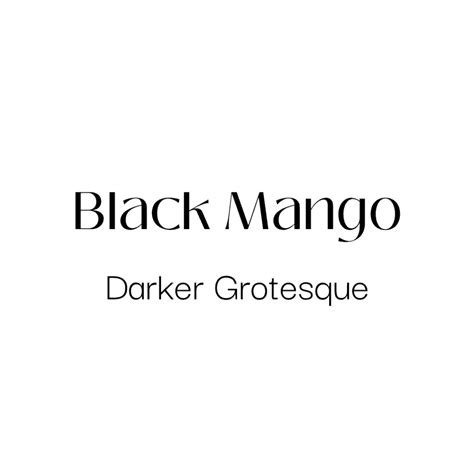
Black Mango Font Pairing. Web here are my favorite canva font pairings for fashion brands as of 2021: Archivo black + dm sans.
Web here are my favorite canva font pairings for fashion brands as of 2021: Web find and save ideas about black mango font pairing on pinterest. Archivo black + dm sans. Web this canva font combination is professional and modern.
Web this canva font combination is professional and modern. Web find and save ideas about black mango font pairing on pinterest. Web this canva font combination is professional and modern. Archivo black + dm sans. Web here are my favorite canva font pairings for fashion brands as of 2021: